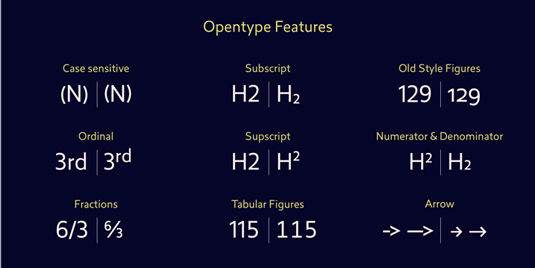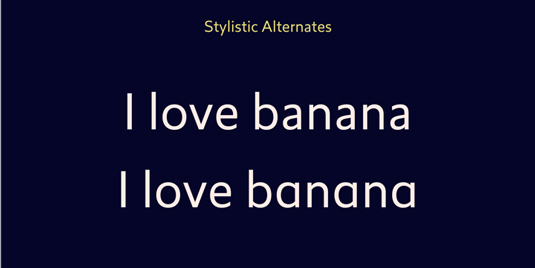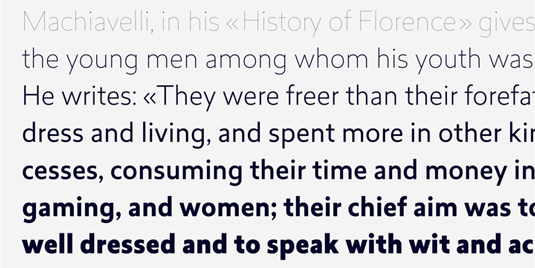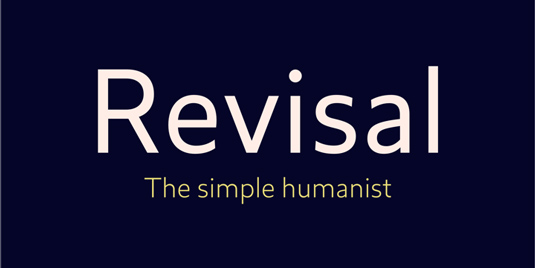
Font of the day: Revisal
Revisal from Type Dynamic
A humanist sans family, Revisal includes seven weights, from hairline to black with their corresponding italics. Offered by font shop Type Dynamic, each design includes OpenType features such as stylistic alternates, tabular figures, superscript and more.